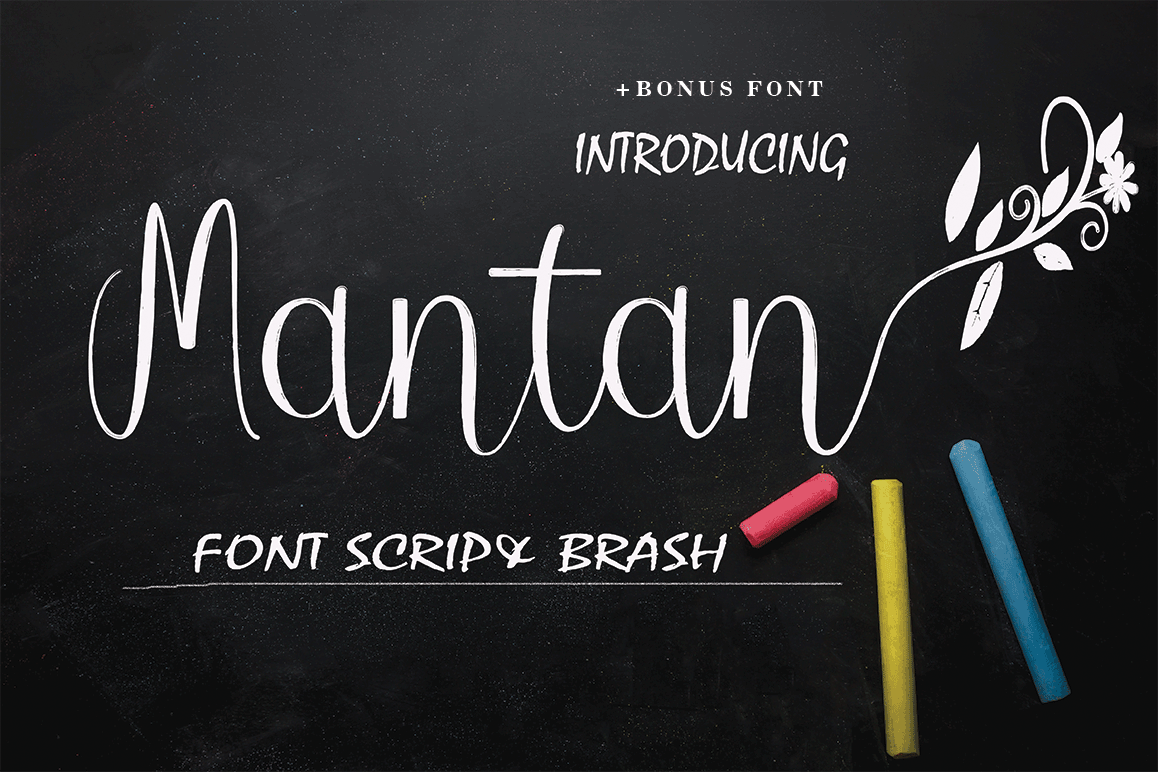
Mantan
Mantanscript
Mantan
FONT BRUSH is the font style handmade dancing and then live trace to have unique forms of calligraphy, the writing style is very natural, fantastic and unique.